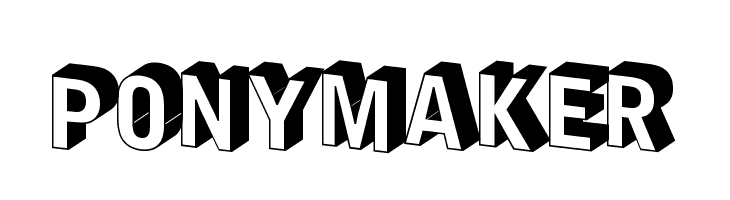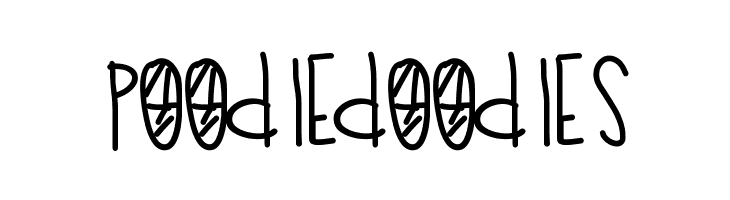
• Pontiff Wide
A bold, wide font with geometric shapes and a modern aesthetic.
• Pontos Regular
A bold, decorative font with circular patterns inside each uppercase letter.
• PonyMaker
A bold, three-dimensional font with a striking shadow effect.
• PonyRides
A whimsical and decorative font with playful embellishments and dynamic shapes.
• Ponyville Medium
• poo
• PooCorny
( Fonts by Daniel Gauthier )
A playful, cartoon-like font with bold, rounded characters and a bubbly appearance.
• poodle lover
( Fonts by SnailFonts )
A playful, hand-drawn font with a whimsical and quirky style.
• PoodleDoodles
A playful, hand-drawn font with a whimsical, doodle-like style.
• PoodlesInChina